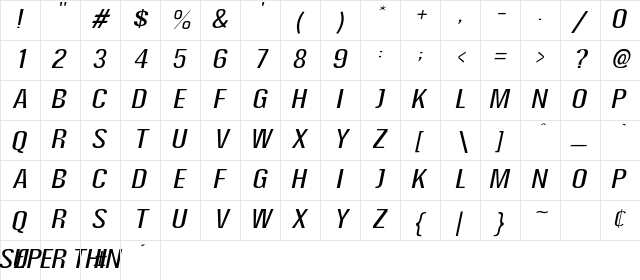
Super Thin Italic Font Preview
| Designer | Joseph Dawson |
Design Context for Super Thin Typeface
Super Thin offers clean, dependable letterforms without strong stylistic allegiance, making it a practical choice for designers who need flexibility. The dynamic lean of this cut emphasises speed and emphasis in any layout. The delicate stroke weight brings airiness and refinement to layouts.
Pro Tip: Try Super Thin for annotation and caption copy alongside an upright companion — the contrast in angle creates a dynamic but ordered typographic system.